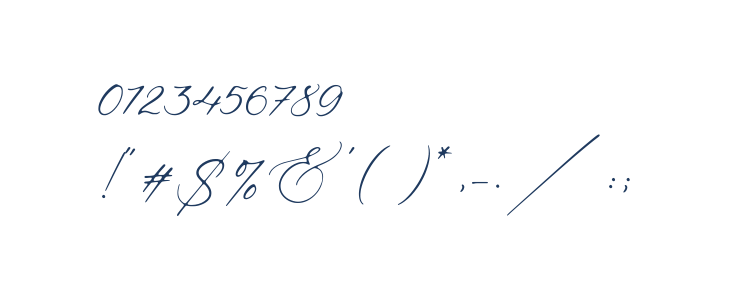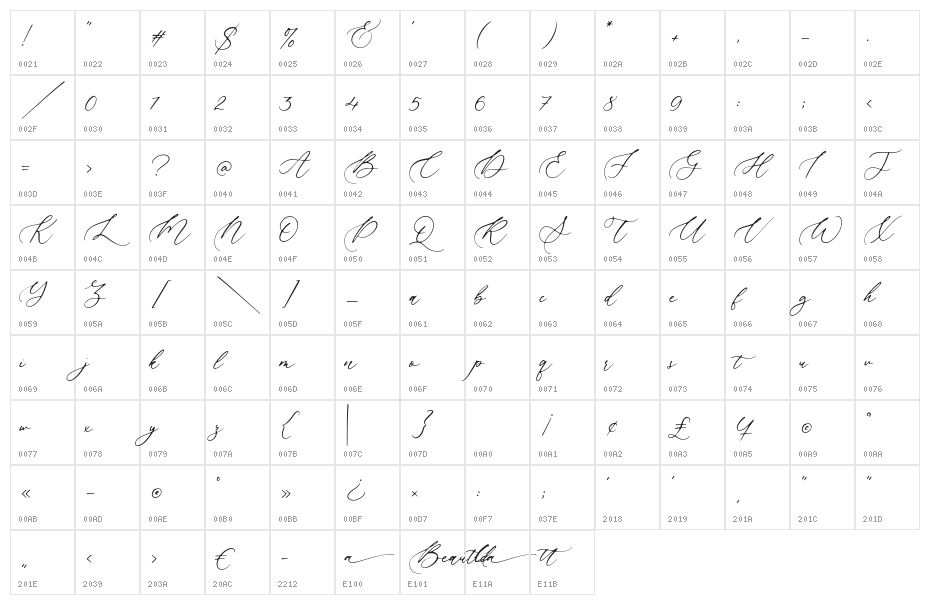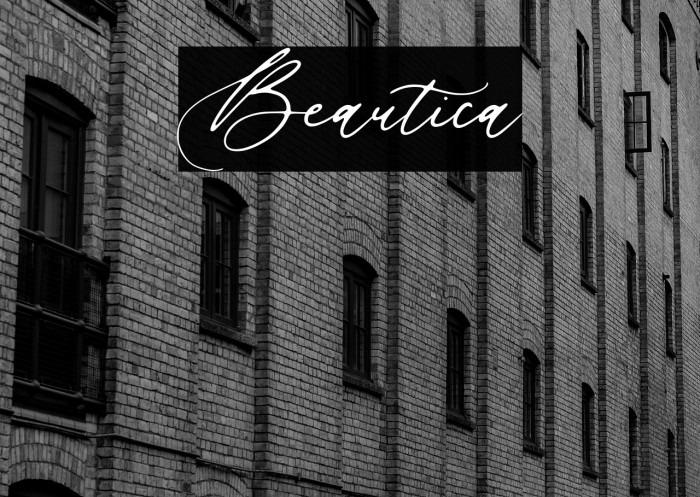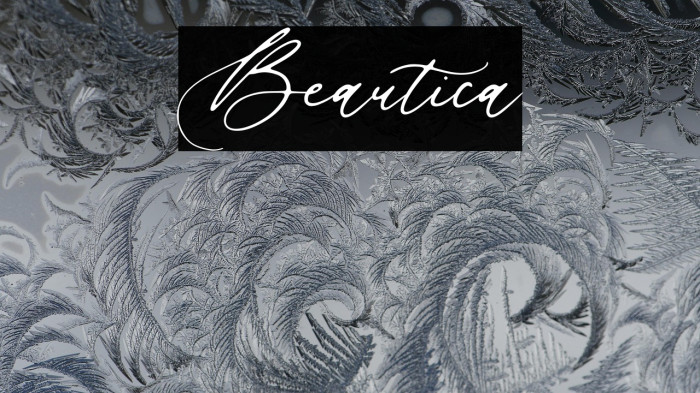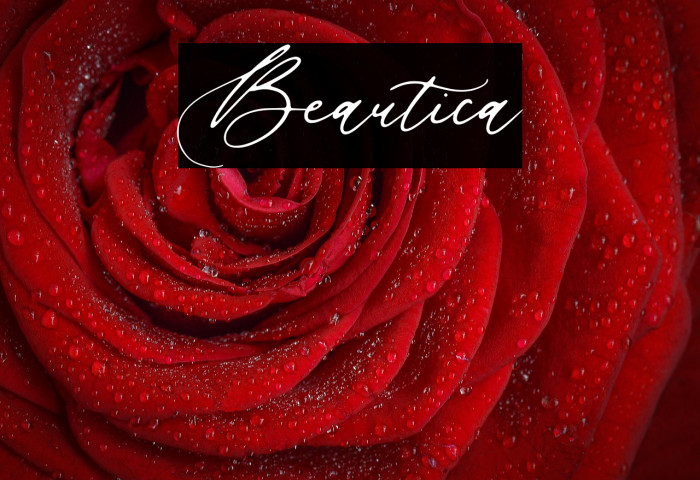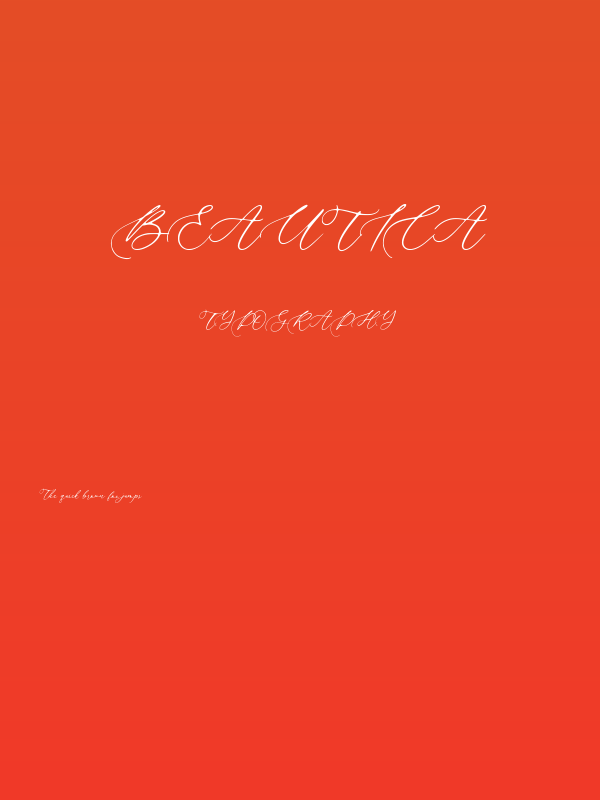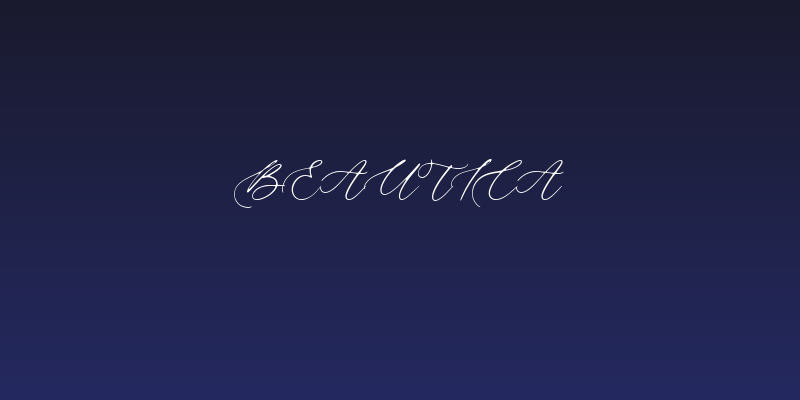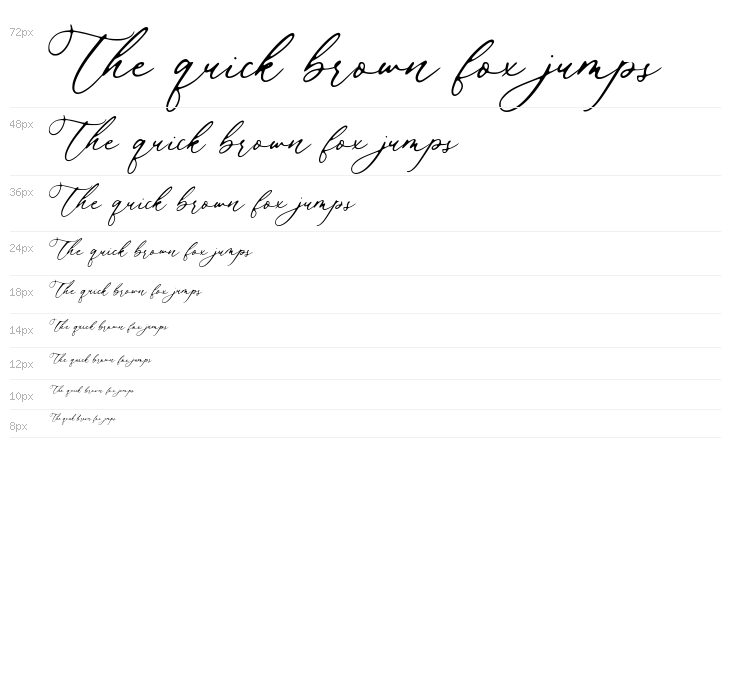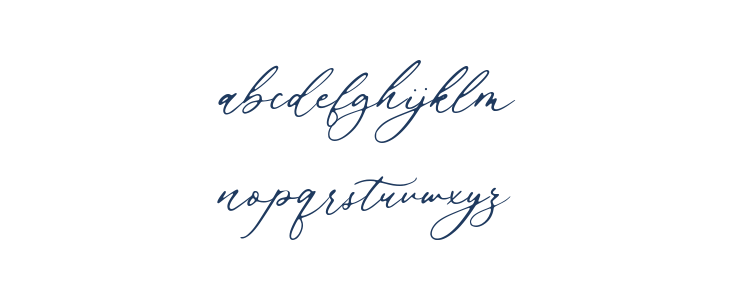
Beautica Font
Beautica Description
This elegant script font features a flowing, cursive style with intricate loops and swashes, giving it a sophisticated and graceful appearance. The uppercase letters are particularly ornate, with extended flourishes that add a touch of drama and elegance. The lowercase letters maintain a consistent flow, making them highly readable despite their decorative nature. The numerals and special characters are designed to complement the overall style, ensuring a cohesive look across all text elements. This font is perfect for projects that require a touch of elegance and sophistication, such as wedding invitations, branding, and high-end product packaging.
| Overall Style | Elegant, Decorative |
| Proposed Projects | Wedding invitations, luxury branding, elegant product packaging, formal event materials. |